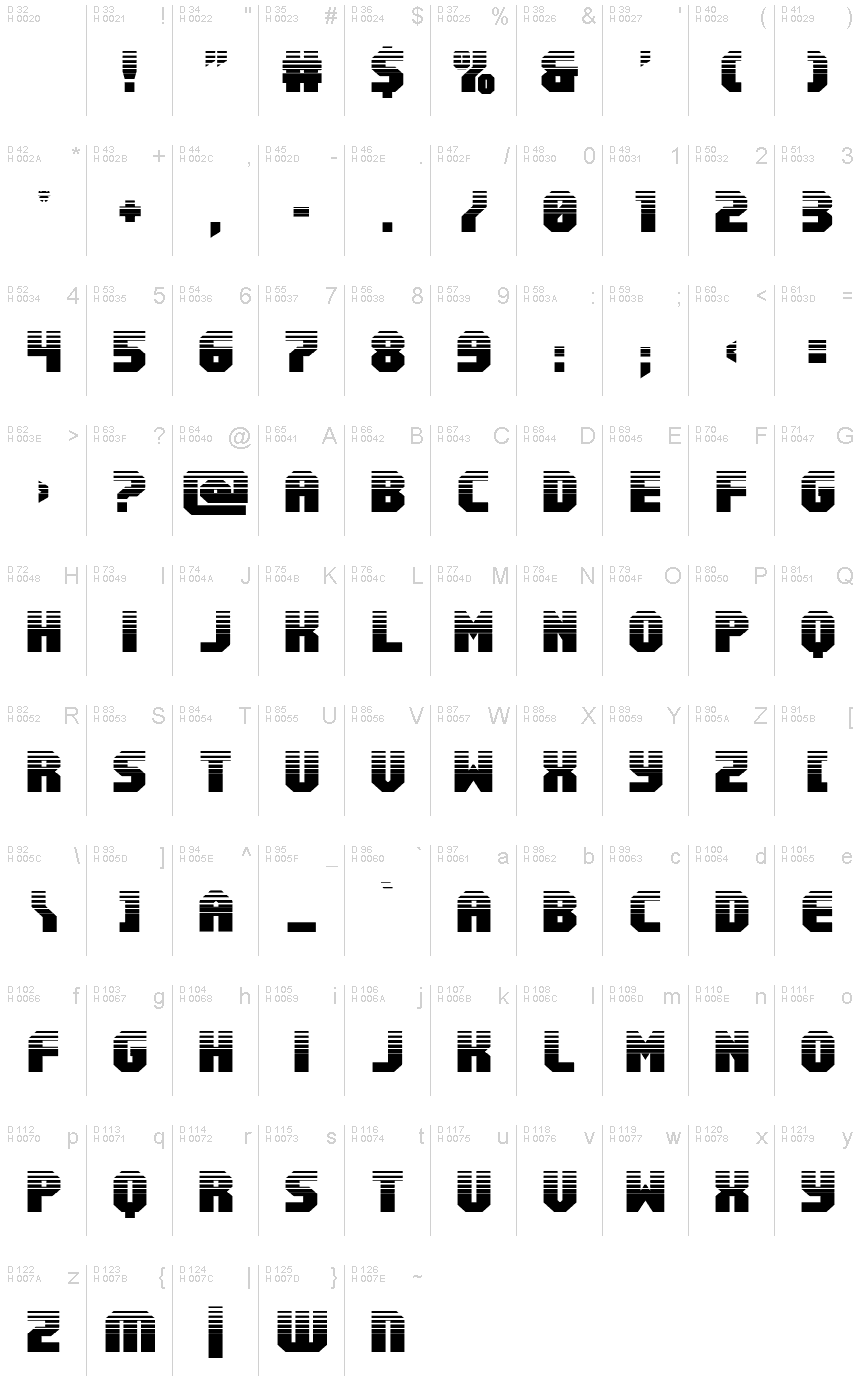
Metal Sentinel Halftone
Metal Sentinel Halftone is a bold display font created by designer Daniel Zadorozny. Its techno style makes it perfect for futuristic, industrial projects, as well as modern-looking titles and logos. With its strong character and unique design, Metal Sentinel Halftone will make any project stand out from the crowd. Whether you're looking to add a touch of sci-fi to your project or create something edgy and eye-catching, this font is sure to be an asset.